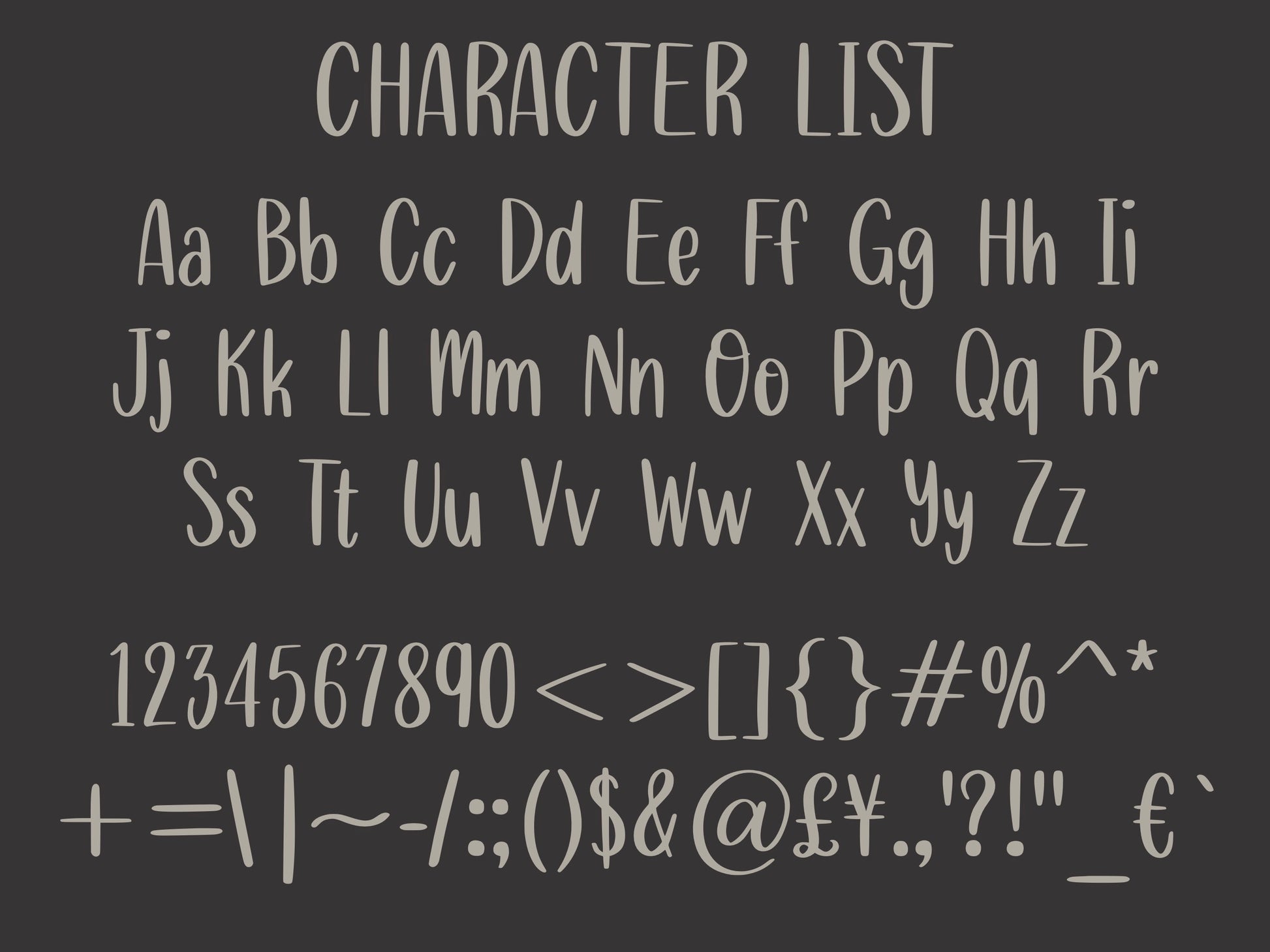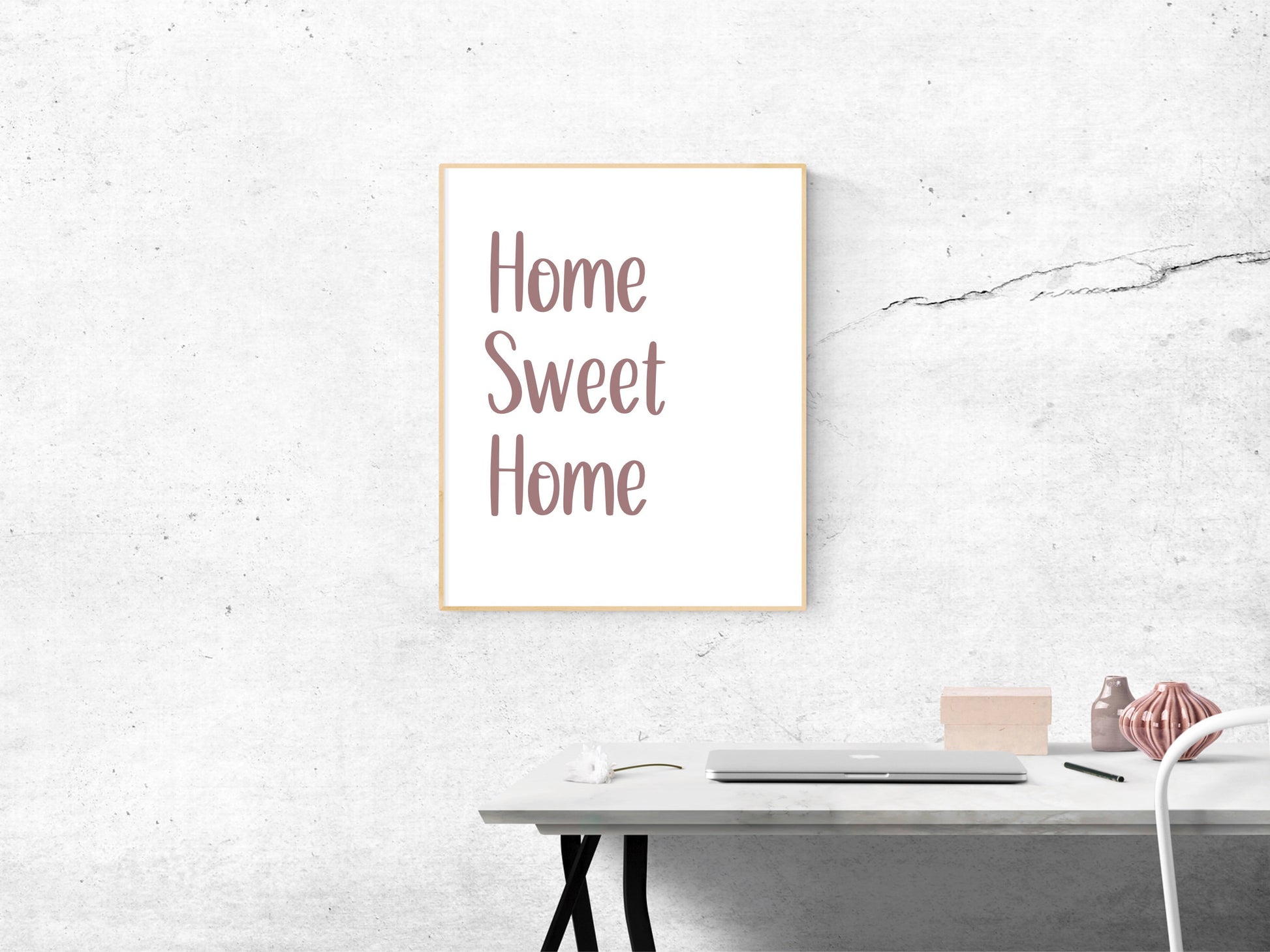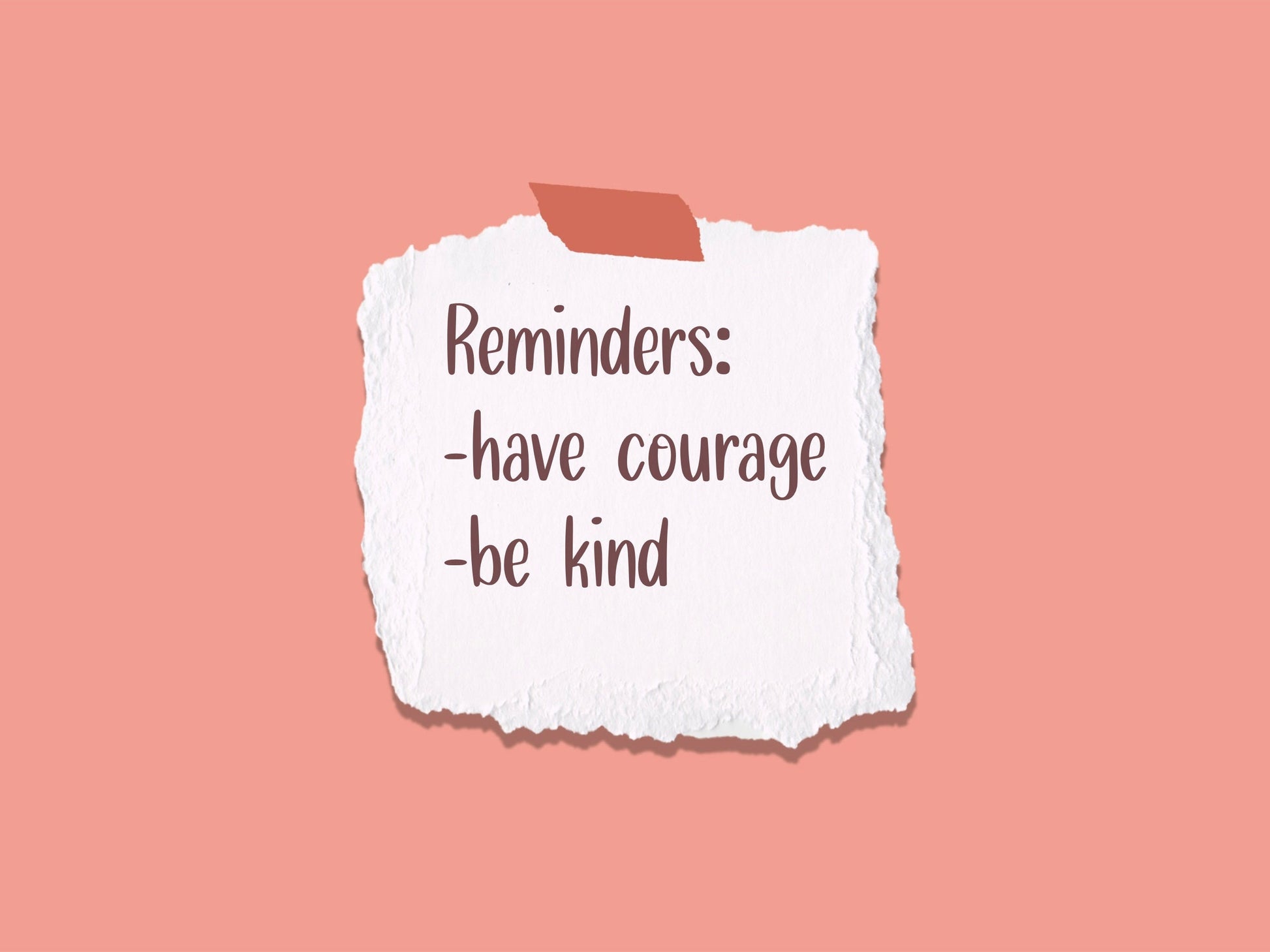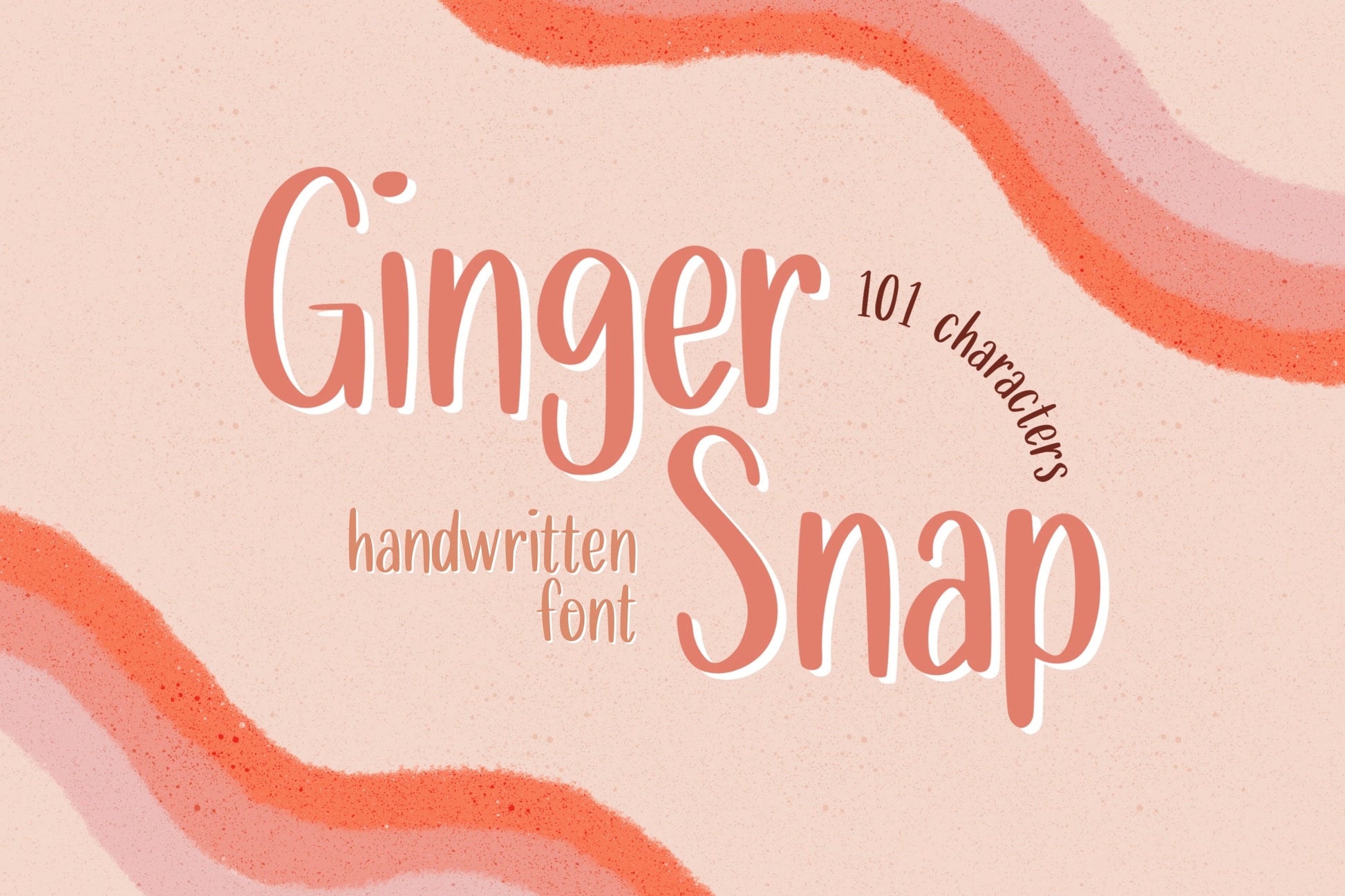
Ginger Snap Handwritten Font
This is my Ginger Snap handwritten/hand drawn font. This unique font will add a fun, rustic, handmade touch to your design!